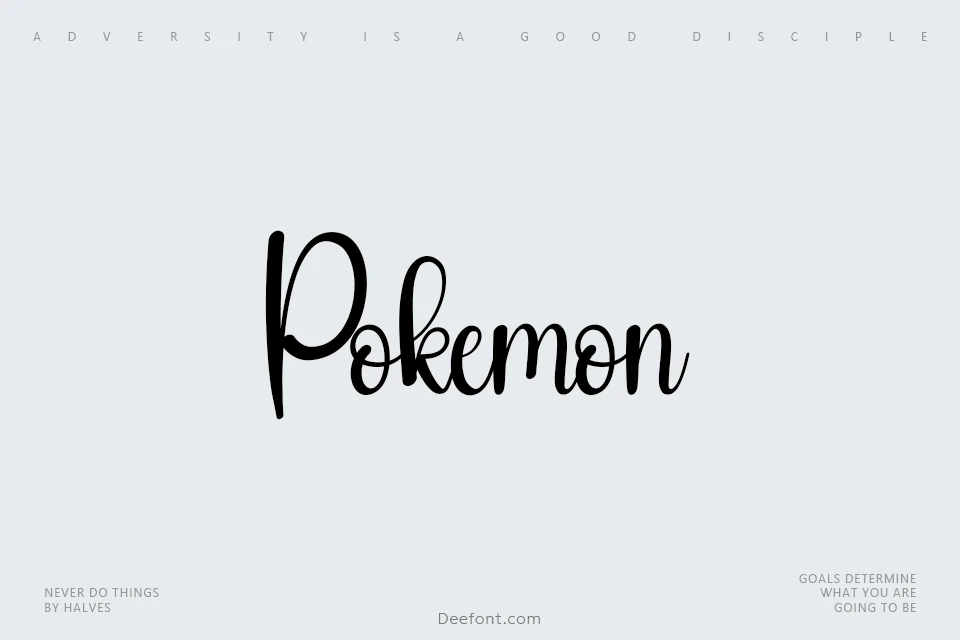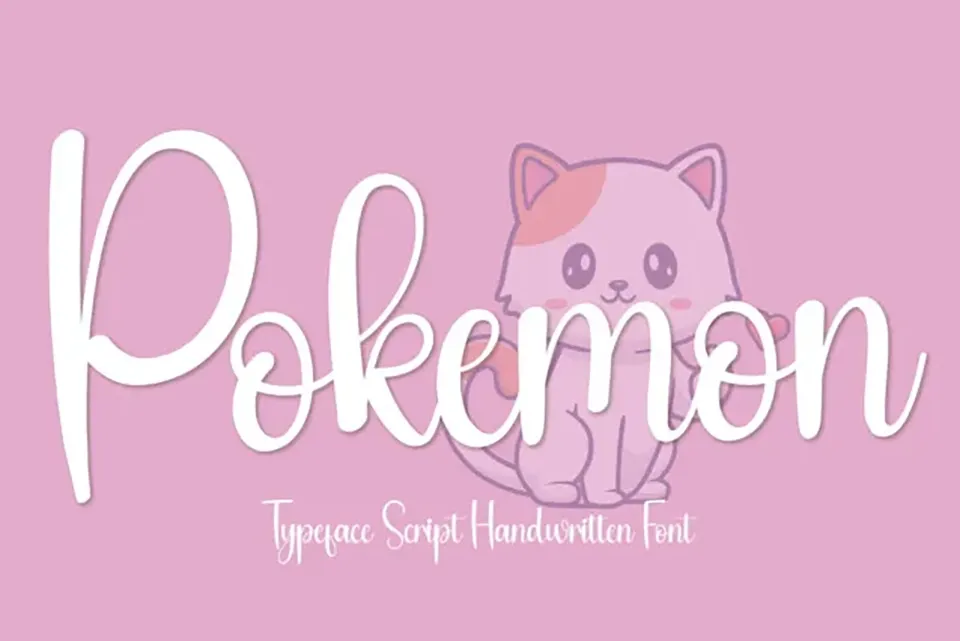
Pokemon Script Font
The Pokemon Script Handwritten Font is a playful and charming typeface that combines a handwritten script style with a whimsical, friendly touch. Perfect for creative projects, invitations, and branding that require a soft, approachable feel, this font stands out with its smooth curves and lively personality. Inspired by the fun and adventure of the Pokémon universe, it is ideal for both personal and fan-based designs, offering versatility and a unique flair to your typography.